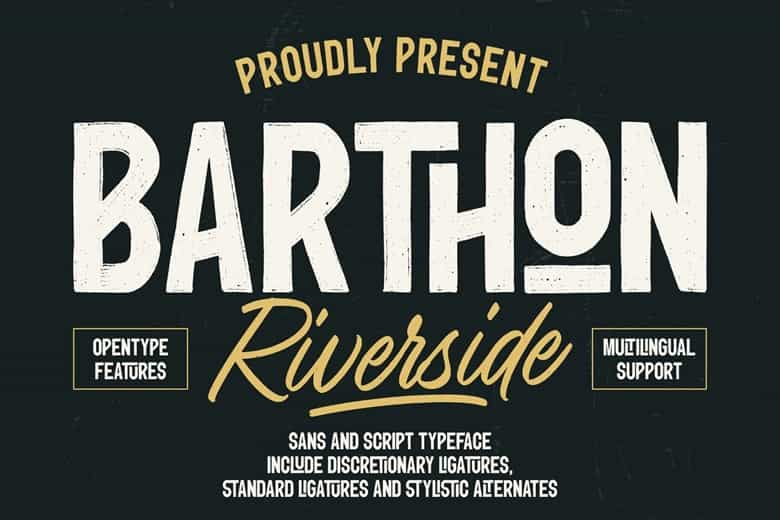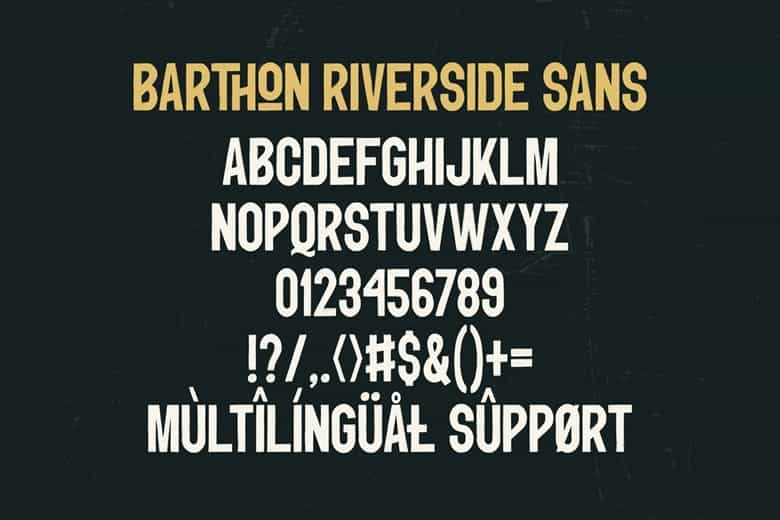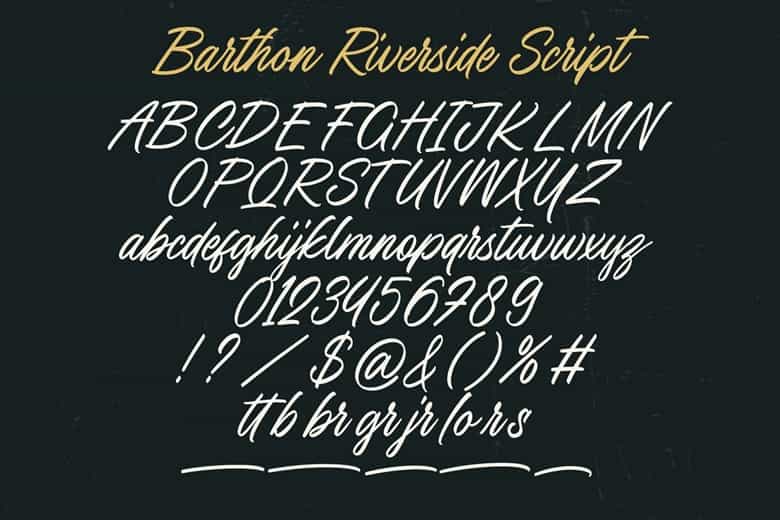
Barthon Riverside is a modern sans-serif and handwritten script font duo that is multipurpose and can be used for any occasion. These material perfectly complement each other as they are modern and stylish, making it possible for artists to work with in different creative ways.